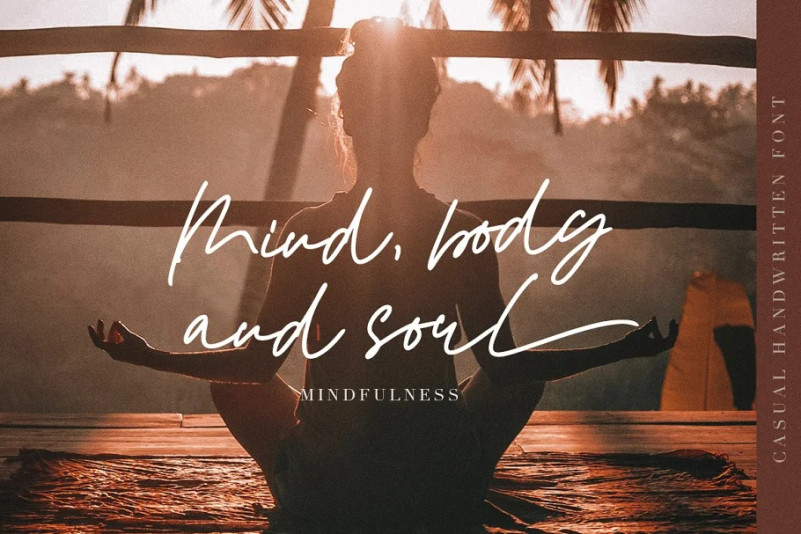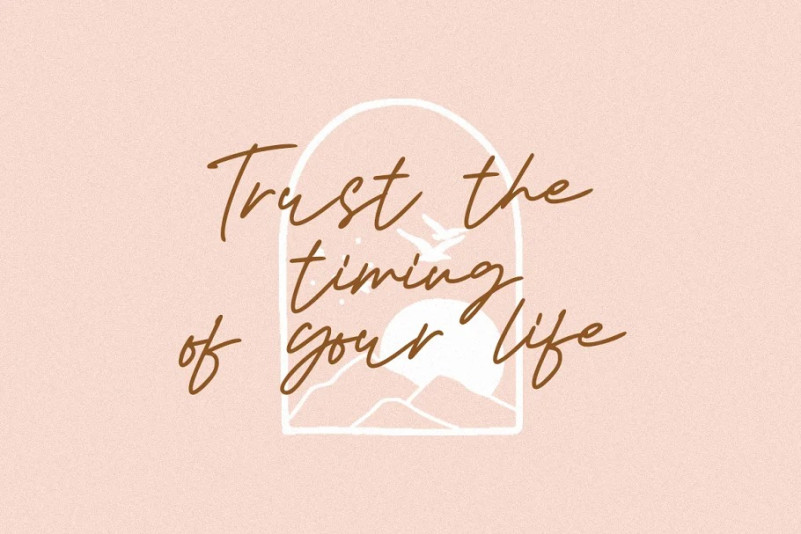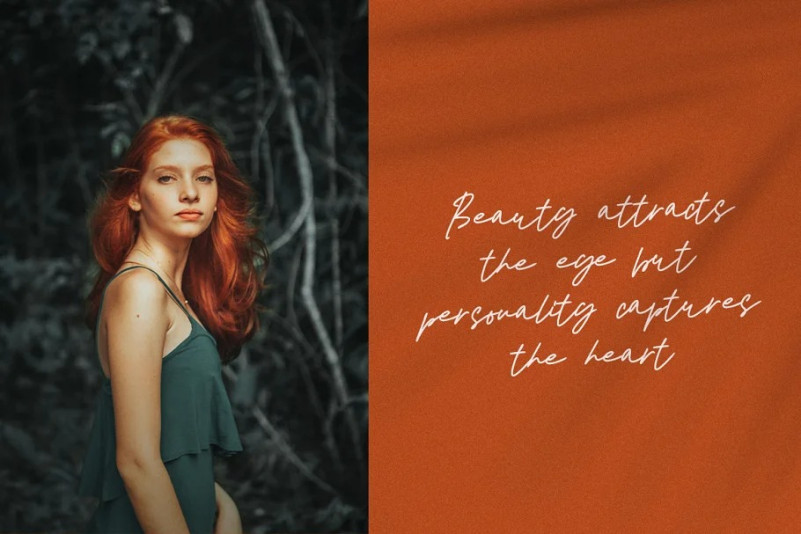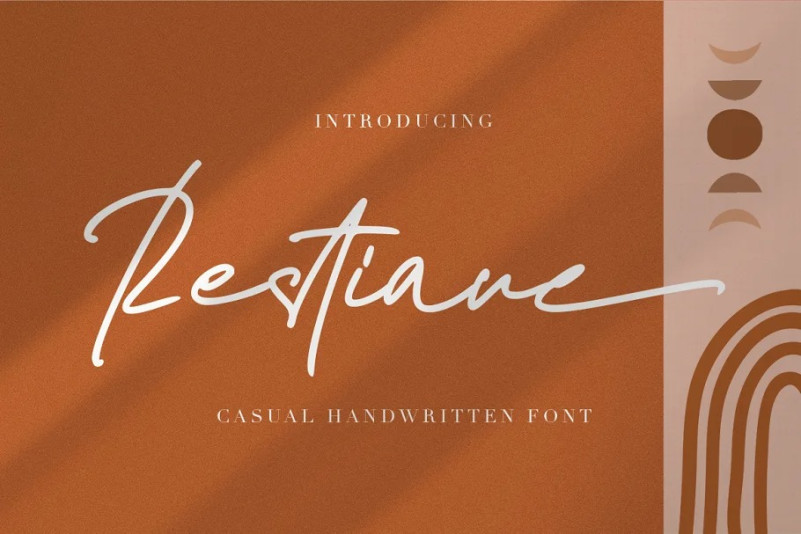
Restiane Handwritten Font is signature collection typeface created by FallenGraphic Studio with natural movement make looks elegant, classy and beauty for your latest project. Restiane is perfect for many different projects such as logos & branding, invitation, stationery, wedding designs, social media posts, advertisements, product packaging, product designs, label, photography, watermark, special events, or anything.